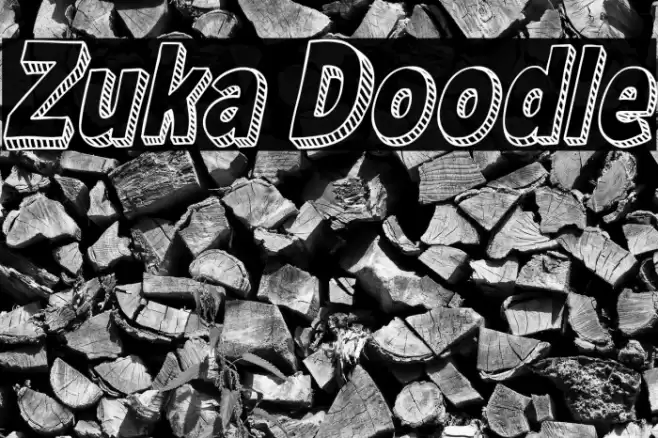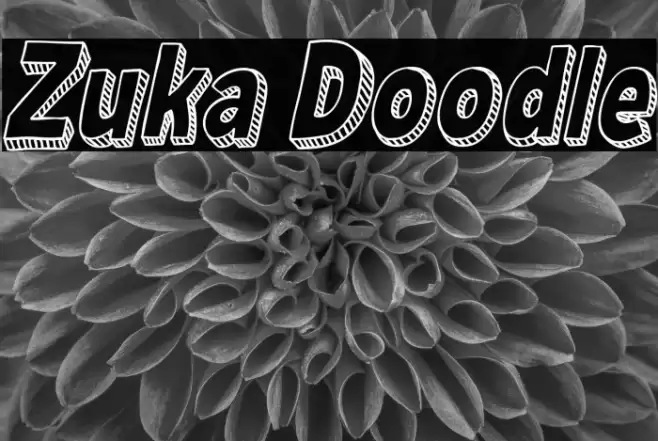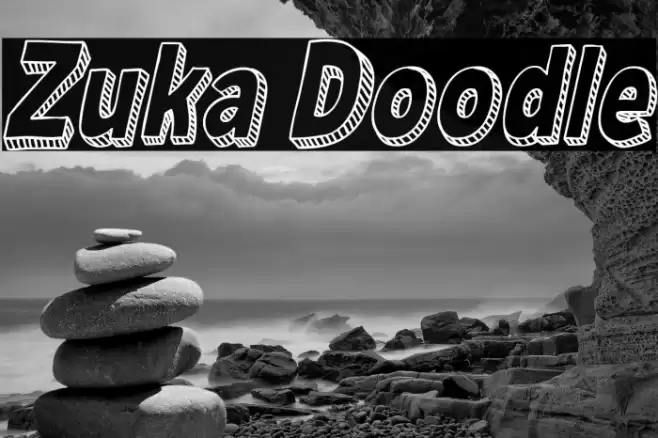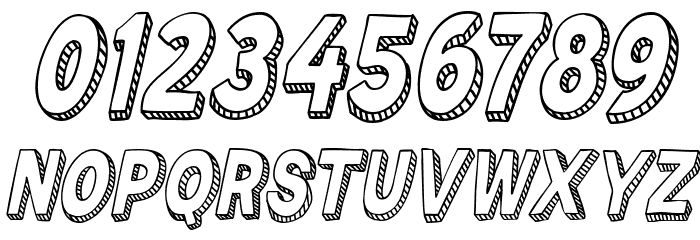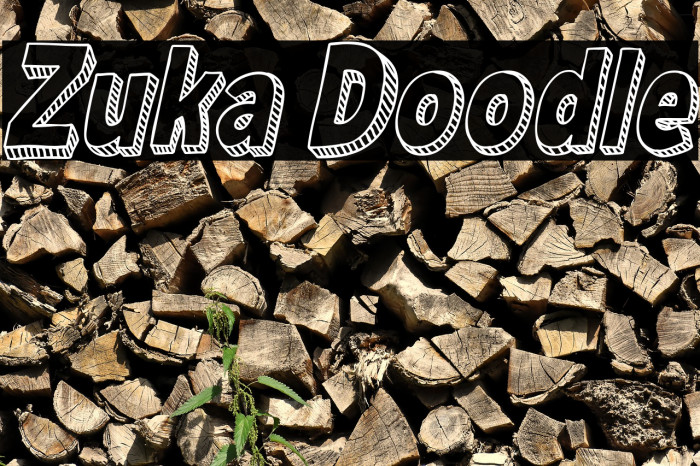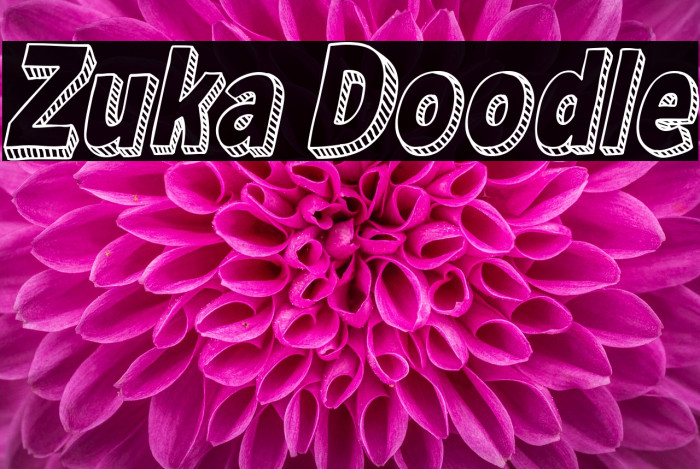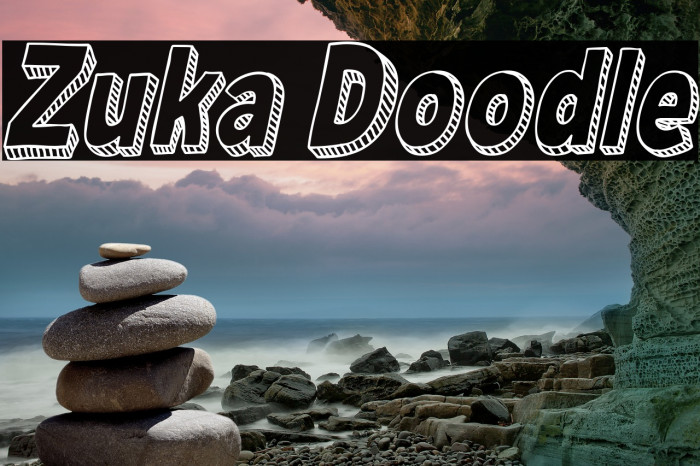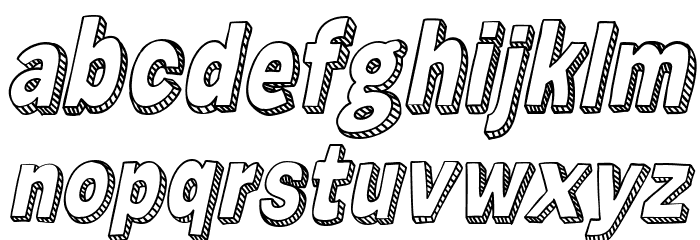
Zuka Doodle Font
Zuka Doodle Description
This playful and dynamic font features a bold, hand-drawn style with a three-dimensional effect created by diagonal hatching. The letters are rounded and slightly slanted, giving them a casual and friendly appearance. The uppercase and lowercase characters maintain a consistent style, while the numerals and special characters complement the overall design. The font's unique doodle-like texture adds a sense of fun and creativity, making it ideal for projects that require a lively and informal touch.
A bold, hand-drawn font with a playful, three-dimensional doodle effect from Cartoon fonts.
- Proposed Projects: Ideal for children's books, comic strips, playful branding, posters, and creative social media graphics.
- Overall Style: Playful, Creative, Informal
- Use Case: Headlines, Posters, Branding